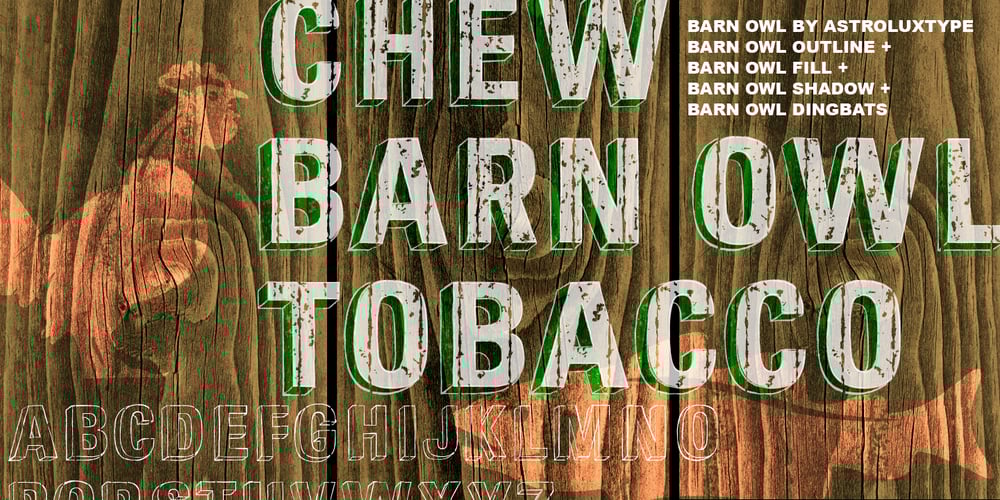
Barn Owl Font Family was designed by Glenn Parsons and published by astroluxtype. Barn Owl contains 3 styles and family package options. Vintage, country, distressed or just plain worn out. The Texas general store on the side of the highway that has been there since 1954 and they’re still selling old fashion bottled soda. A renovation/excavation at a downtown urban construction site reveals the old ad on exterior brick. Barn Owl provides the headline in your project with the ultimate in aged retro visualization. It is a basic minimal font set which includes only uppercase letterforms. It is a headline font best used above 36 points in size. The first of our “Trifonictype” (Tin Sign is the 2nd) there are three components to the font, Barn Owl Outline, Barn Owl Fill and Barn Owl Shadow. These can be used in different combinations for different effects, copy and paste type then indicate a different font each time. Paste in the front or back in application to see effects in combination. Fill and Shadow could be used with irregular letter spacing for various effects. Outline could be used with just Shadow for a another effect. Use your photo manipulation program to overlay and change the transparency of your headline. There are a few extended glyphs and barn(ding)bats in the lowercase letter strokes indicated in a poster sample, these are found only in the Barn Owl Outline. Download PDF manual for complete showing.